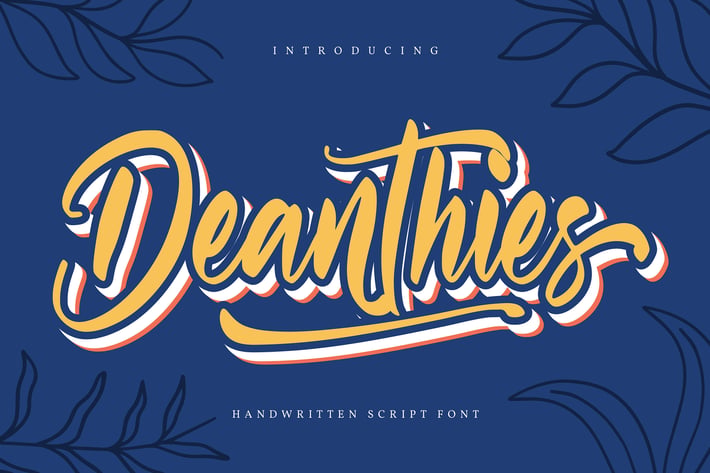
Deanthies | Handwritten Script Font
Deanthies | Handwritten Script Font with a calligraphy style, So beautiful on invitation like greeting cards, branding materials, business cards, quotes, posters, and more!